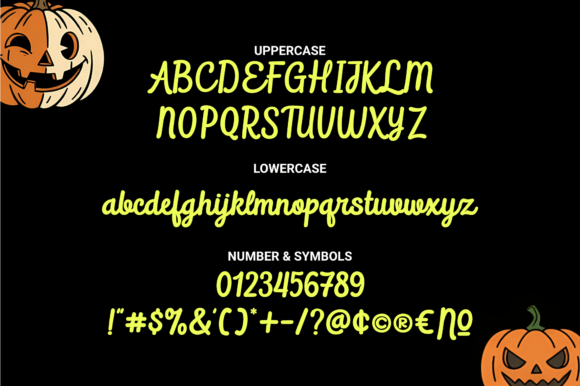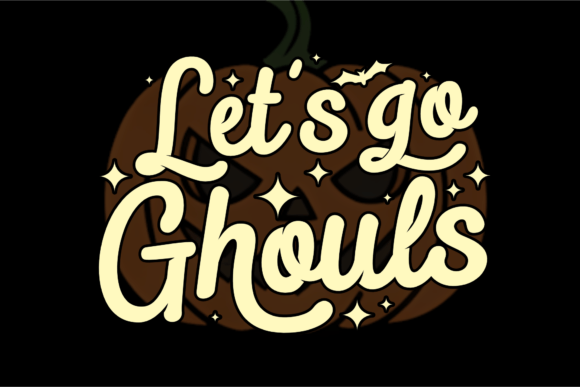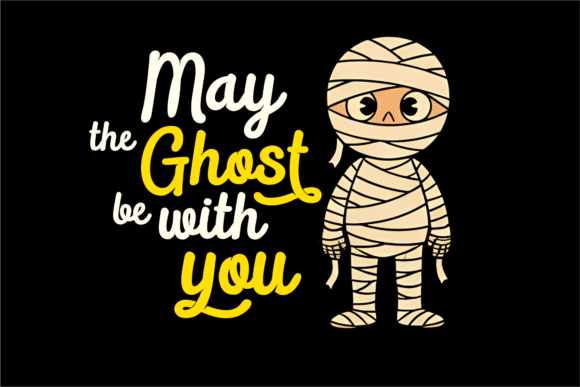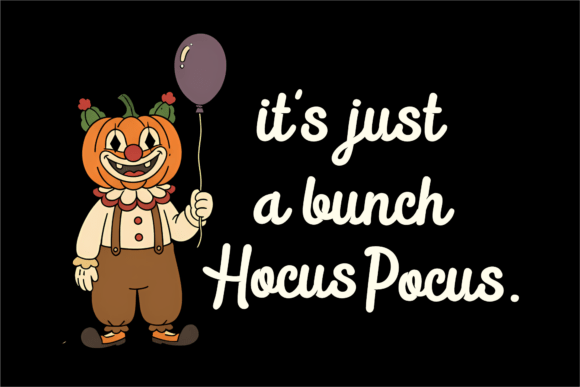
Unleash the Spooky Charm with Beastly Halloween Font
As the spookiest season approaches, designers and crafters are on the lookout for the perfect typography to add a touch of vintage fun to their Halloween-themed designs. Look no further than the Beastly Halloween Font, a charming and spooky retro font that’s perfect for creating memorable party invitations, posters, merchandise, and social media graphics.
A Perfect Blend of Vintage and Spooky
Beastly Halloween is a display font that combines the elegance of mid-century lettering with a dash of cartoonish mischief. Its bold, hand-drawn curves and playful style make it an ideal choice for designers who want to create festive and fun designs without being too frightening. The font’s thick, rounded letters offer a warm and approachable feel, balanced by just the right amount of seasonal spookiness.
Nostalgic Vibes and Playful Style
Beastly Halloween Font exudes nostalgic vibes reminiscent of 1950s Halloween cartoons, candy packaging, and classic costume ads. The font’s smooth, flowing strokes and playful swashes evoke a sense of playfulness and fun, making it perfect for creating cheerful, spooky content. Whether you’re designing party invitations, trick-or-treat bags, or seasonal logos, this font is sure to add a touch of vintage charm to your designs.
Adorned with Subtle Details
One of the standout features of Beastly Halloween Font is its subtle details, including starbursts and adorable pumpkin-headed characters. These whimsical touches add an extra layer of fun and playfulness to your designs, making them perfect for Halloween-themed projects. The font’s decorative elements can be used to create eye-catching graphics, add visual interest to your designs, and make your projects stand out.
Beastly Halloween Font is ideal for designers and crafters who want to create memorable and festive Halloween designs. The font’s versatility makes it perfect for a wide range of projects, including:
- Party invitations and posters
- Trick-or-treat bags and seasonal logos
- Merchandise, such as t-shirts and mugs
- Social media graphics and digital art
Tips for Using Beastly Halloween Font
To get the most out of Beastly Halloween Font, here are a few tips:
- Use it as a display font to add a bold and playful touch to your designs
- Pair it with other fonts to create a unique and eye-catching combination
- Don’t be afraid to get creative and add your own personal touches to your designs
Beastly Halloween Font is a charming and spooky retro font that’s perfect for adding a touch of vintage fun to your Halloween-themed designs. With its bold, hand-drawn curves and playful style, this display font is ideal for creating memorable party invitations, posters, merchandise, and social media graphics. Whether you’re a designer or crafter, this font is sure to become a go-to choice for all your Halloween design needs.
Get Ready to Cast a Spell with Beastly Halloween Font